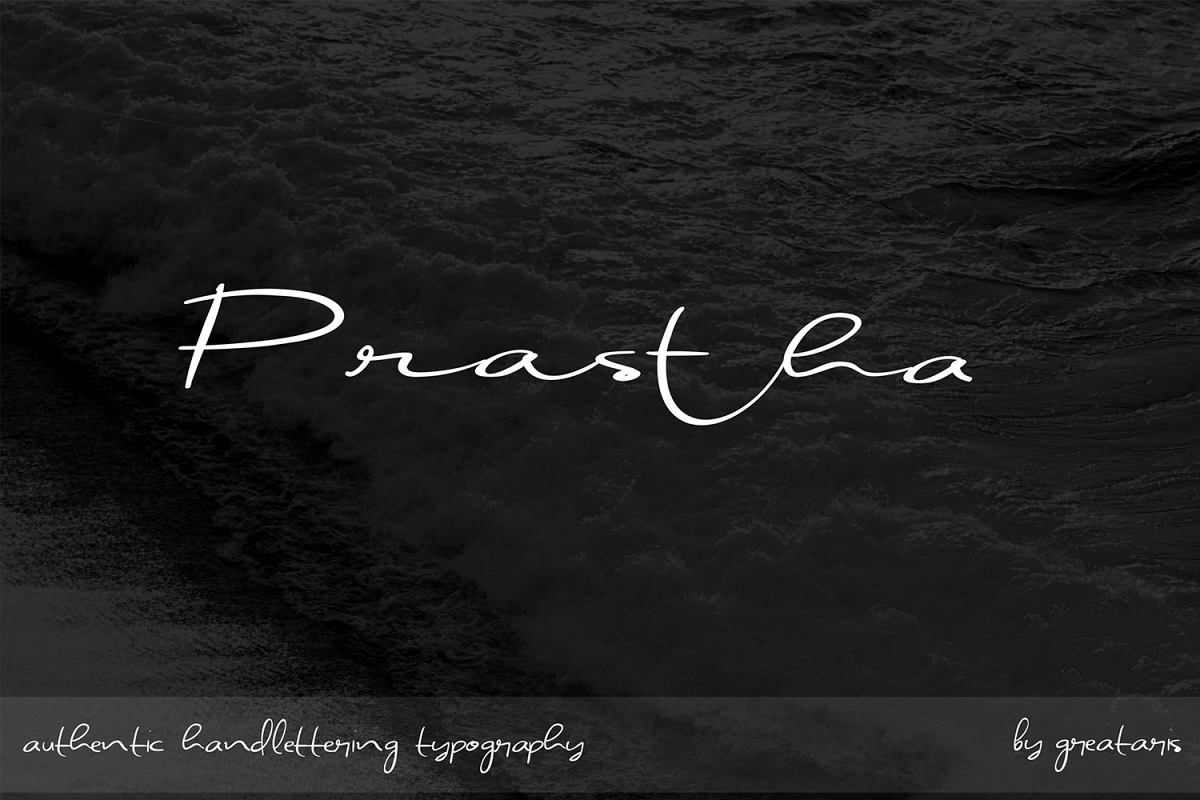
Prastha
Prastha Thin
Prastha
Prastha is script handwriting font style , create clear beauty invitation, business card , label , quote and mood board. 2 type font are ready , regular and thin .